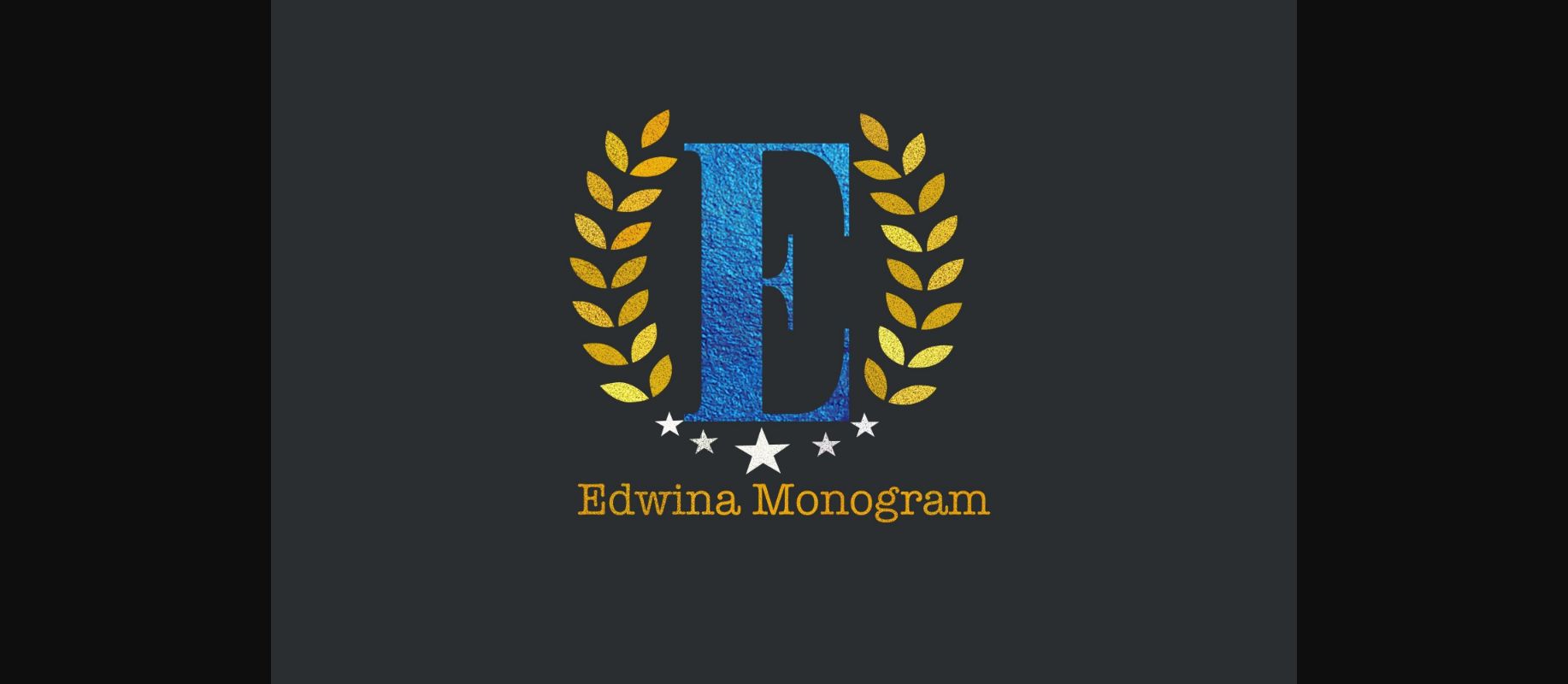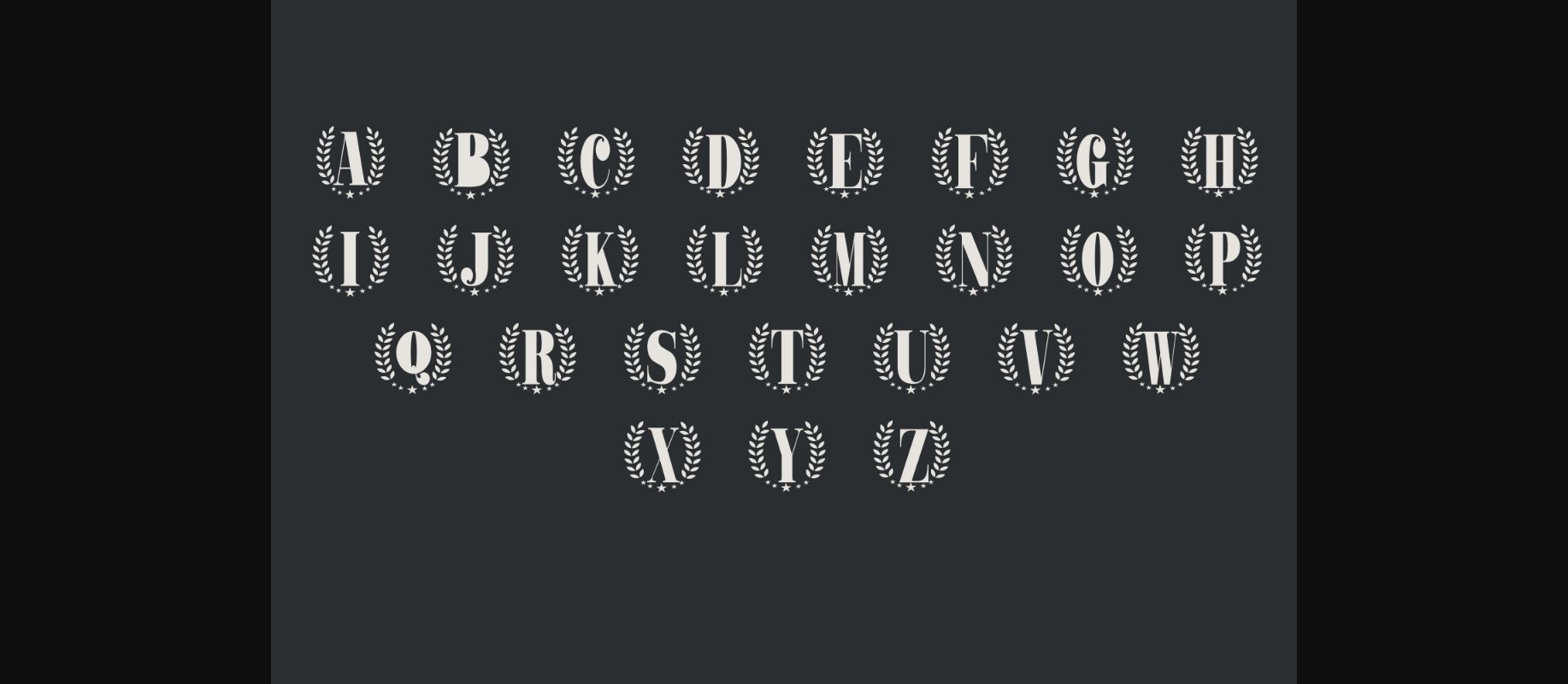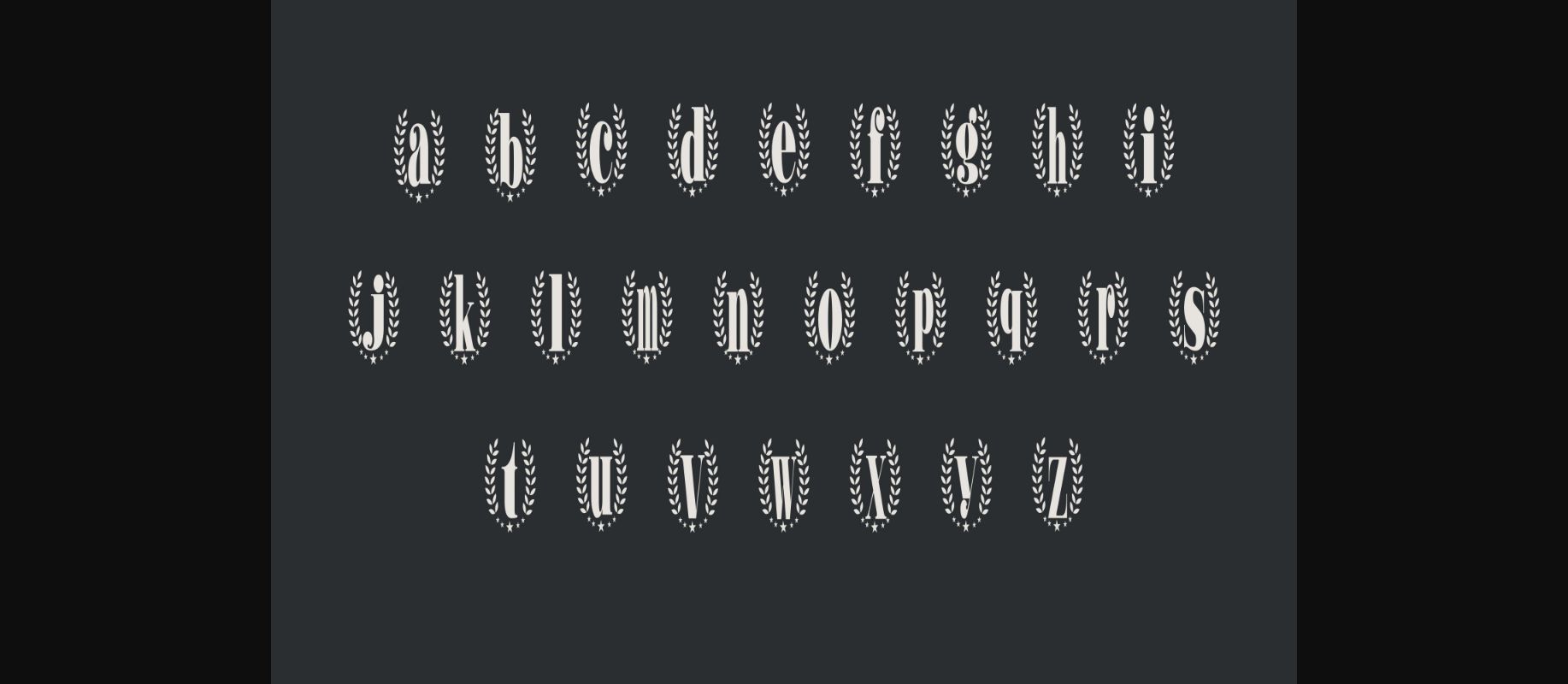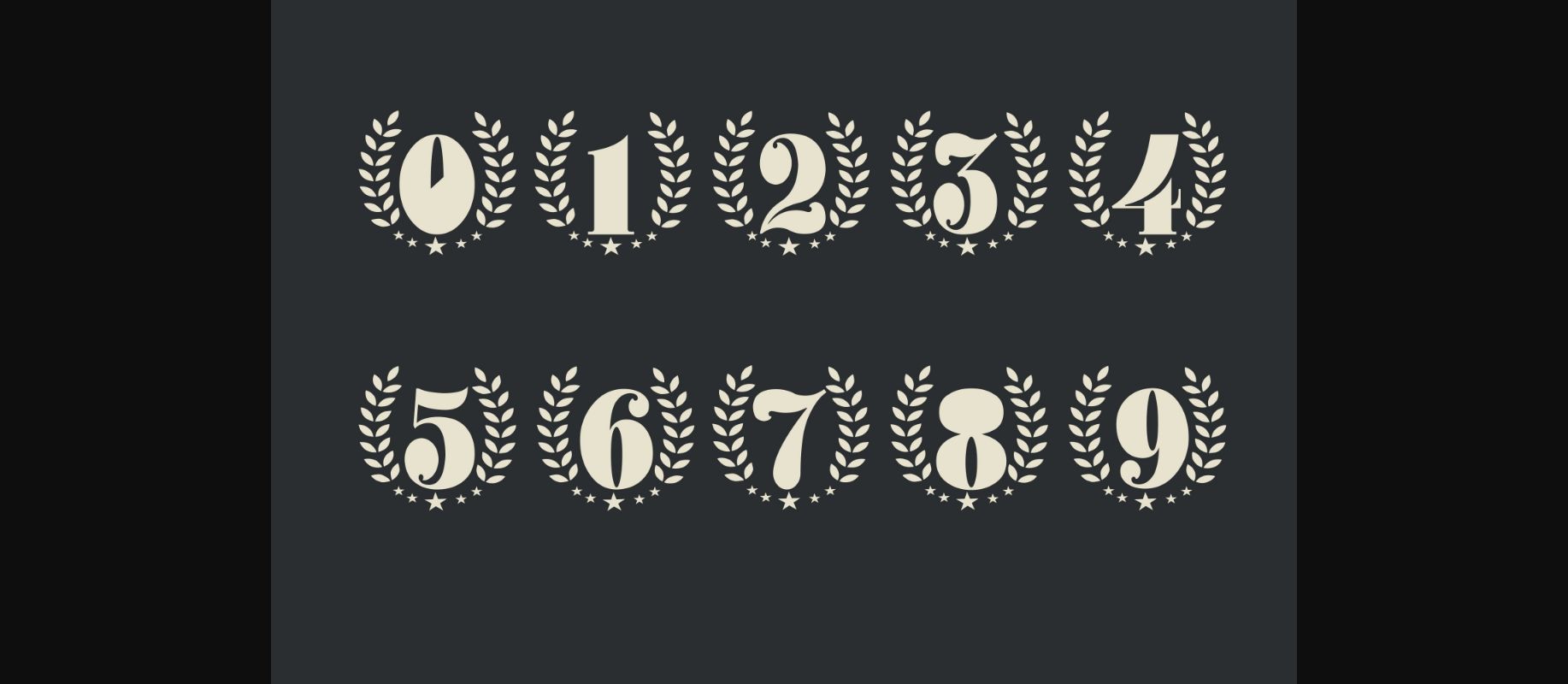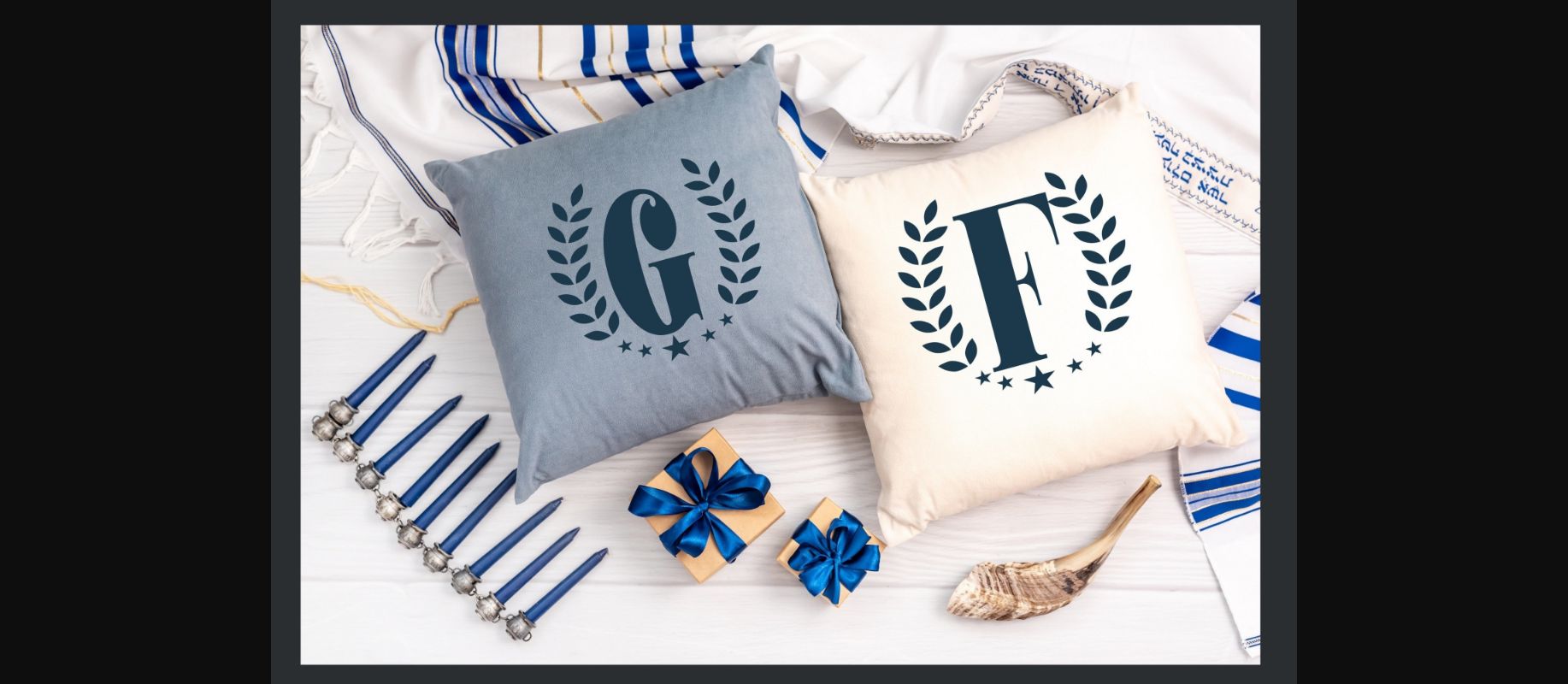
Edwina Font
About Edwina Font
Edwina is a unique monogram decorative font ideal for adding a chic and cheery touch to your crafts. It is perfect for any occasion and it will make all your designs stand out!